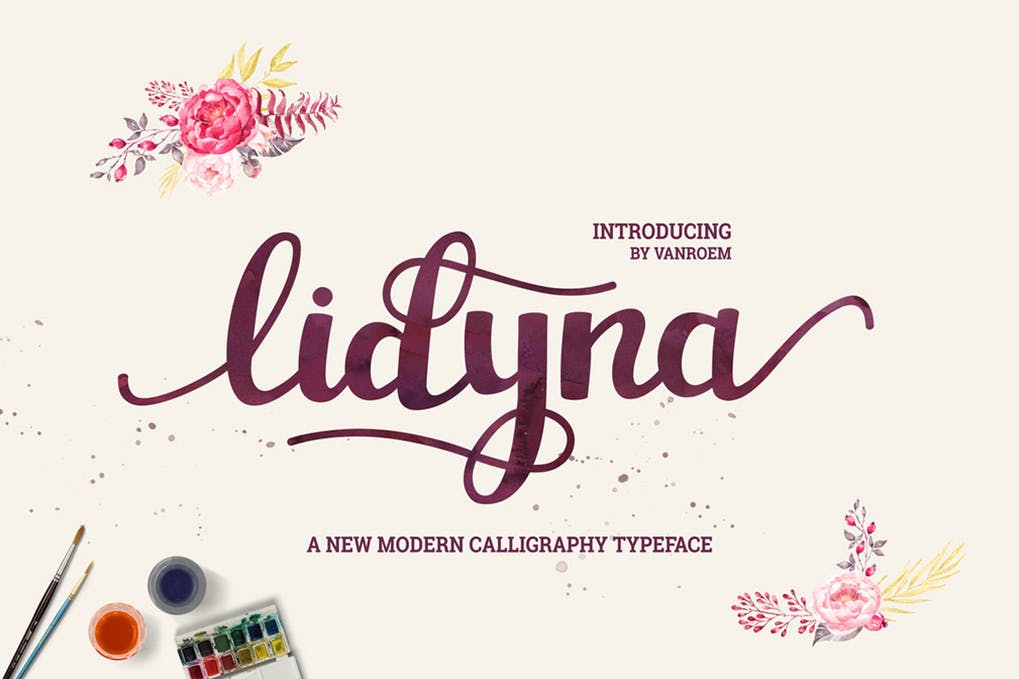
Lidyna Script font is a new fresh, modern calligraphy typefcace, elegant, beautiful and dancing baseline! This font that combined brush lettering with traditional hand writing. Looks great on personal branding, business cards, stamps, quote posters and greeting cards. And don’t forget wedding season! This would be gorgeous font for your design projects. Lidyna elegant script … Continue reading Lidyna Script Font